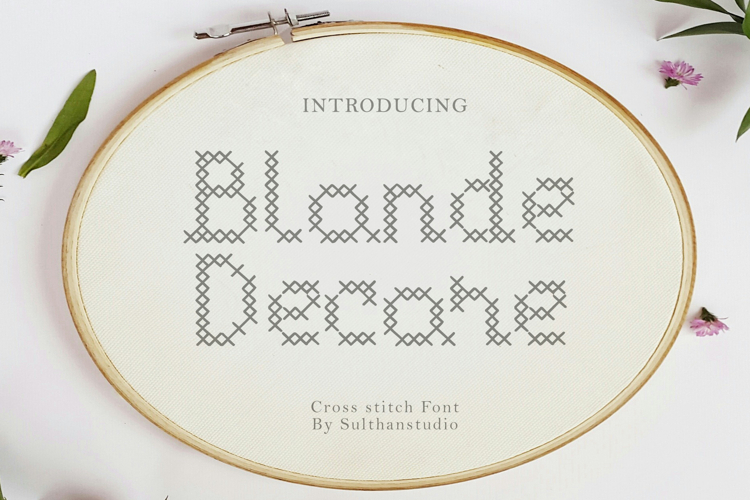
This font is made in a cross stitch style, formed by a series of small x letters arranged neatly, creating a distinctive pixelated appearance of this cross stitch embroidery which is very charming and looks natural like stitching.